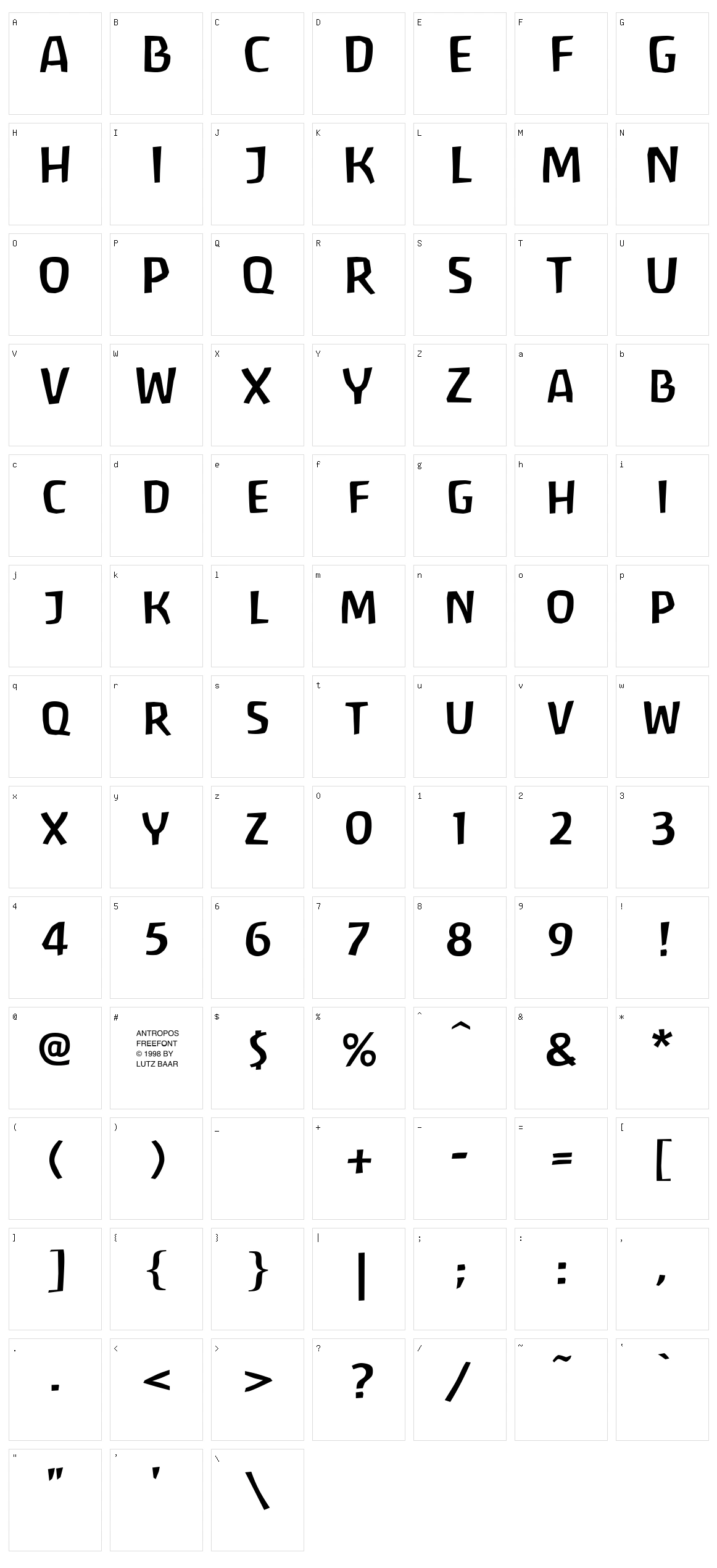
The free font Antropos is carefully designed by Lutz Baar, showcasing a thoughtful balance of creativity and usability and falls under the Eroded font style. When you download the ZIP file, it contains only 20.82 KB of font files, making it lightweight and quick to download. Please review the license details below to understand permitted usage and distribution rights. If license information is not available, we recommend using this font for personal projects only or contacting the author directly for commercial usage permissions.
It was designed entirely to suit cultural purposes. More